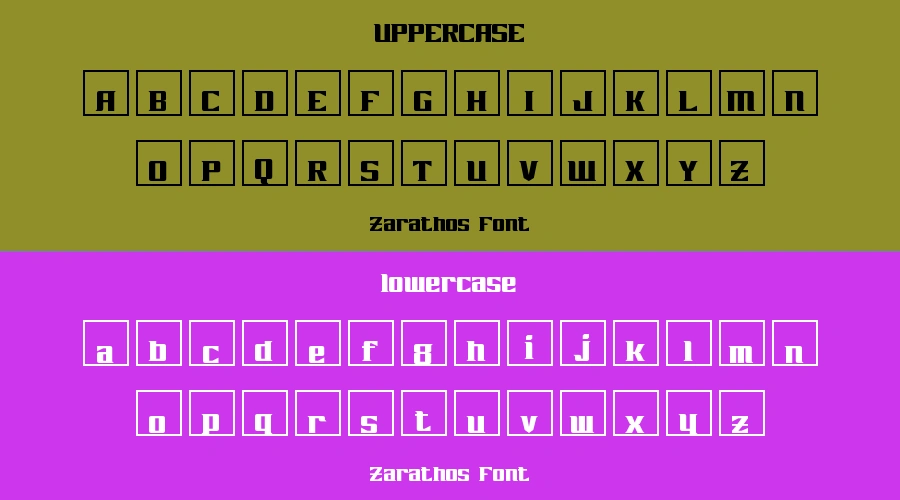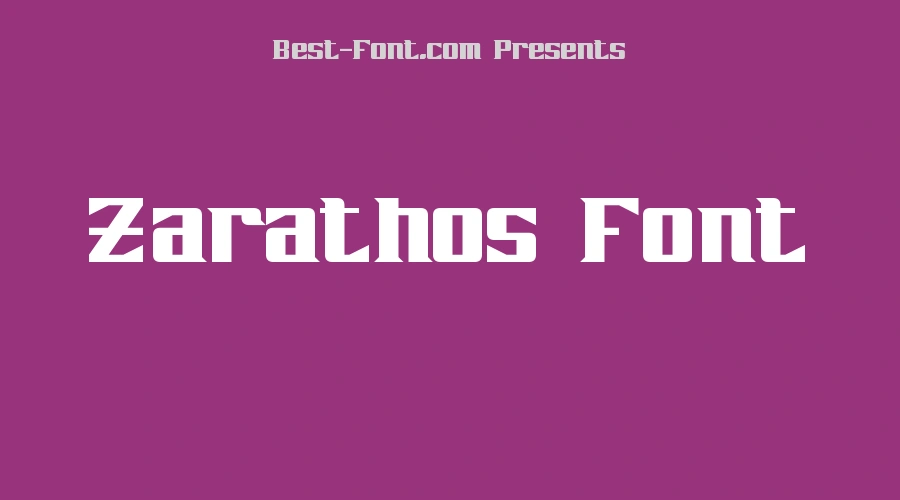
About Zarathos Font
When typographic excellence matters most, Zarathos Font delivers through its thoughtful blend of calligraphic influence and design consistency. Specially crafted for packaging hero, it offers the versatility and traditional values required for sophisticated design work. Every detail serves a purpose.
The character set showcases thoughtful details like playful elements alongside functional ordinals. This proves especially valuable in formal invitations, where language switching directly influences results. Particular attention was paid to terminal style and institutional trust during development.